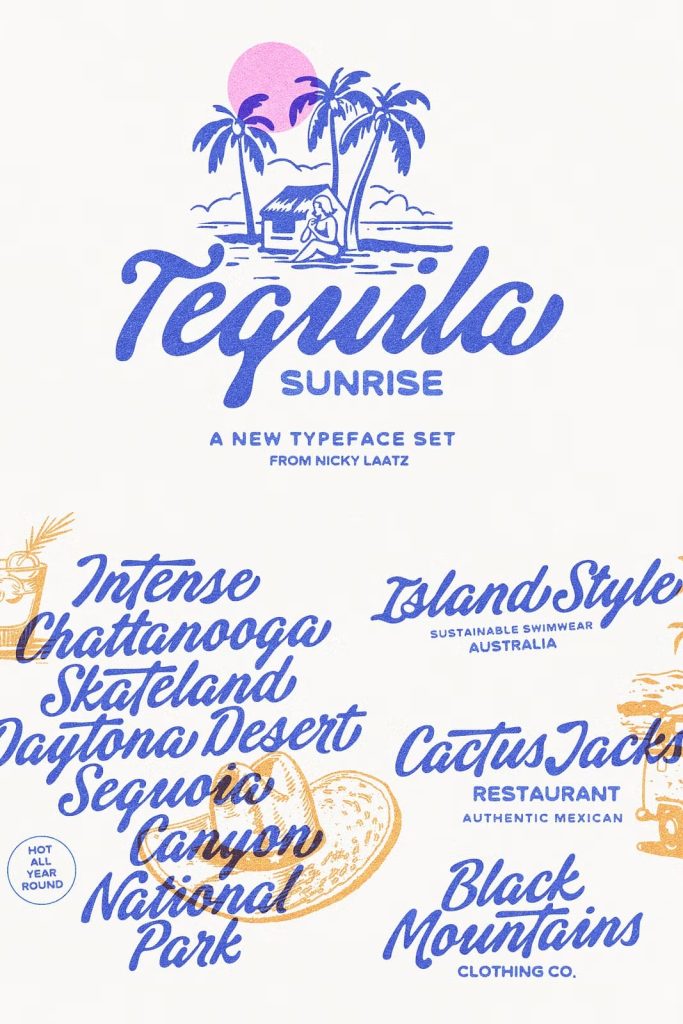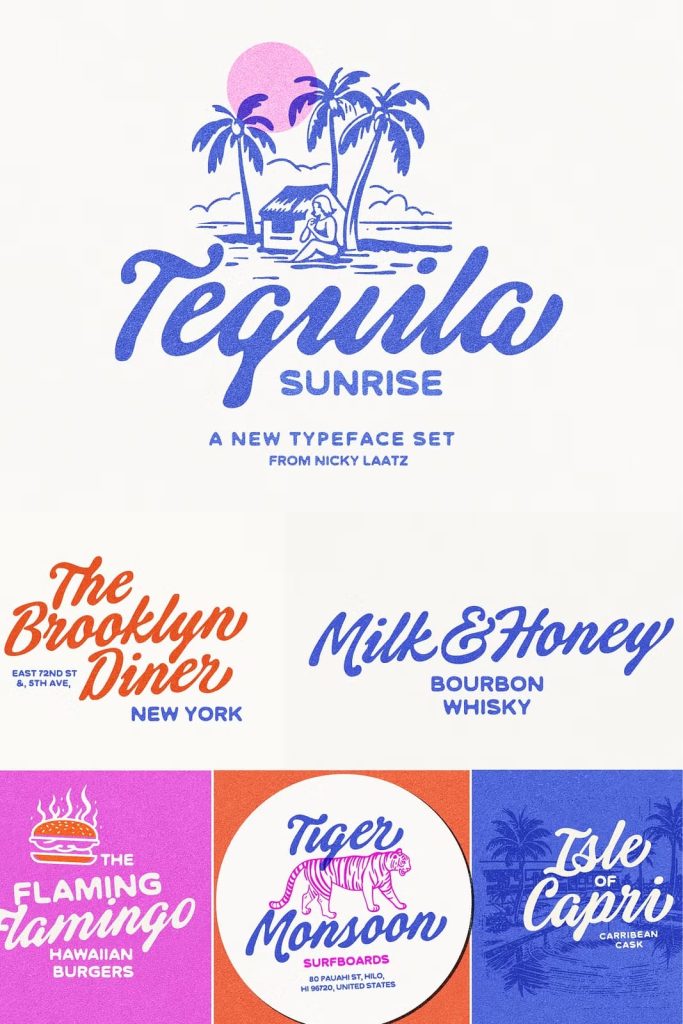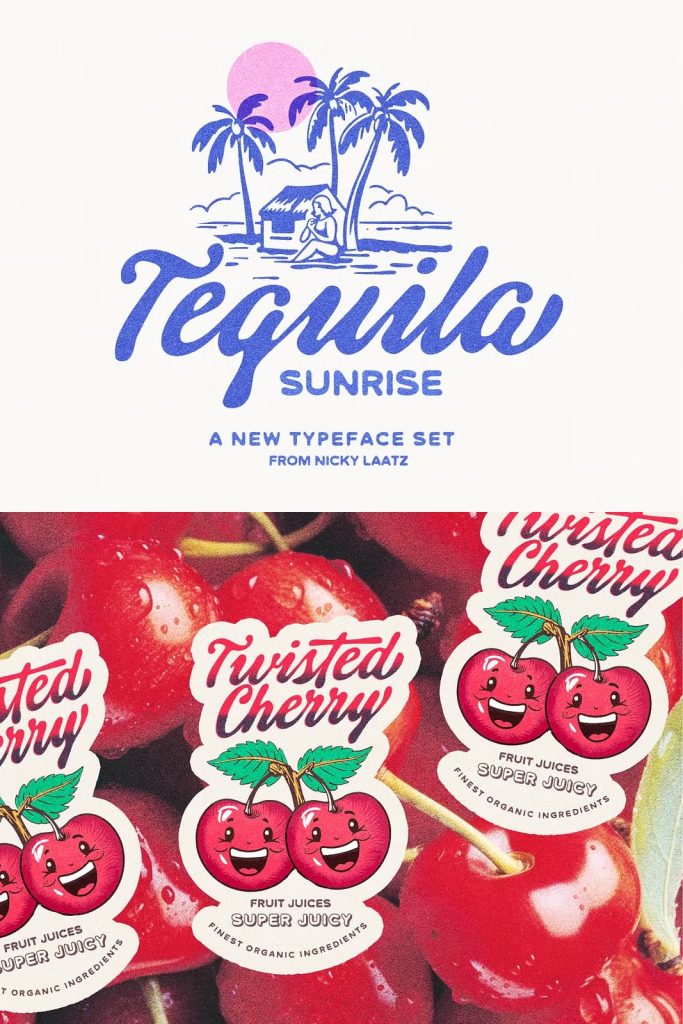
Tequila Sunrise is a vibrant retro-modern font duo that perfectly blends vintage charm with contemporary energy. This dynamic typeface includes a flowing script and a textured inky sans, giving you everything you need to create bold, expressive, and unforgettable designs. Whether you’re working on logos, posters, packaging, or digital media, Tequila Sunrise brings an unmistakable personality to your creative projects.
Say Hello to Bold Retro Style
Inspired by the groovy aesthetics of the mid-20th century, Tequila Sunrise revives the retro spirit with a modern twist. The flowing script font radiates warmth and sophistication, while the complementary inky sans adds texture and attitude. Together, they form a cohesive visual partnership that balances elegance and edge, making your designs instantly memorable.
The script’s elegant curves and rhythmic strokes draw inspiration from vintage sign painting and hand-lettered advertisements. Each letter connects naturally, creating smooth word shapes that feel hand-crafted and authentic. This attention to detail gives Tequila Sunrise its unique, organic charm—perfect for projects that demand a touch of nostalgia and artistry.
Features That Make It Shine
Tequila Sunrise isn’t just stylish—it’s powerful and practical. The script font comes packed with OpenType features including beautiful alternates and ligatures, allowing you to personalize your typography with ease. By combining different letter variations, you can create natural handwriting effects that truly stand out.
The companion Inky Sans is bold, gritty, and full of character. Its slightly rough texture contrasts perfectly with the smooth script, giving your designs a handcrafted aesthetic that feels fresh and engaging. Together, these two fonts form a complete visual toolkit—ready to elevate your brand identity, product labels, or creative visuals.
Versatility for Modern Designers
Whether you’re creating vintage-inspired branding or modern editorial layouts, Tequila Sunrise adapts beautifully. The script font’s elegance makes it perfect for logos, wedding invitations, product packaging, or apparel design, while the sans-serif companion provides solid support for taglines, subheadings, and smaller text elements.
This typeface duo also performs brilliantly across digital and print media. Its clean outlines ensure crisp results on screens, while its textured details give printed materials a warm, tactile feel. The pairing of smooth script and inky sans allows you to maintain consistency in your brand visuals while experimenting with contrast and depth.
Designed for Personality and Performance
Tequila Sunrise was crafted to inspire creativity and confidence. Every stroke of the script carries motion and emotion, while the sans font grounds the design with bold stability. The harmonious relationship between the two makes it easy to design eye-catching compositions that resonate with your audience.
OpenType features such as stylistic alternates, contextual ligatures, and special characters give you the freedom to create text that feels personal and expressive. Whether you prefer polished elegance or raw handmade charm, Tequila Sunrise offers the flexibility to achieve both with ease.
Perfect for Branding, Packaging, and More
If you want your project to radiate style, confidence, and retro charm, Tequila Sunrise delivers. Use it to design unique logos, product labels, posters, greeting cards, or social media visuals. Its playful yet professional tone makes it ideal for lifestyle brands, creative studios, cafes, and artisanal businesses looking for an authentic visual identity.
The typeface’s built-in alternates and smooth flow make every word feel custom-made. You can easily create standout titles, inspiring quotes, or signature-style graphics that evoke creativity and nostalgia. Tequila Sunrise is not just a font—it’s a design experience that invites you to play, explore, and express.
Bring Retro Energy to Your Designs
Tequila Sunrise captures the essence of retro-modern typography—bold, expressive, and effortlessly stylish. With its distinctive script and textured sans pairing, it empowers designers to bring warmth, character, and movement to any project. The seamless combination of old-school charm and contemporary detail makes it a must-have in every designer’s collection.
Transform your creative work with the captivating energy of Tequila Sunrise. Say hello to a typeface that’s as lively and refreshing as its name—infusing every design with personality, rhythm, and timeless flair.